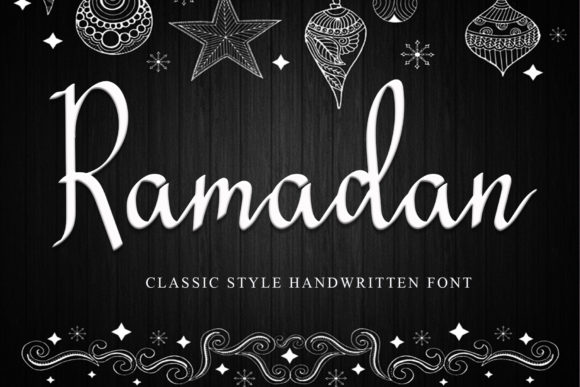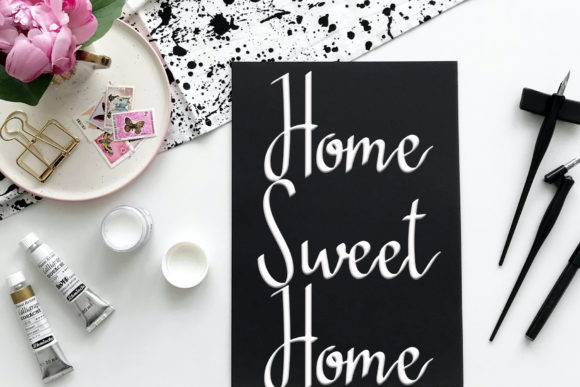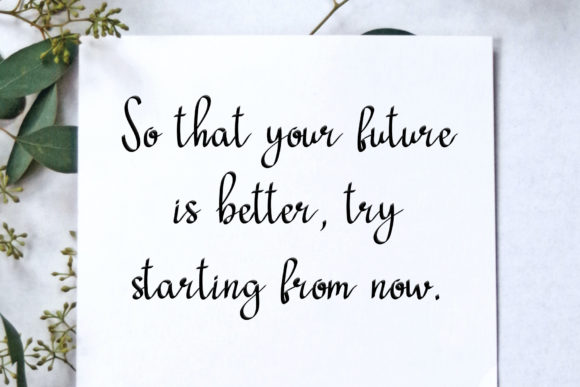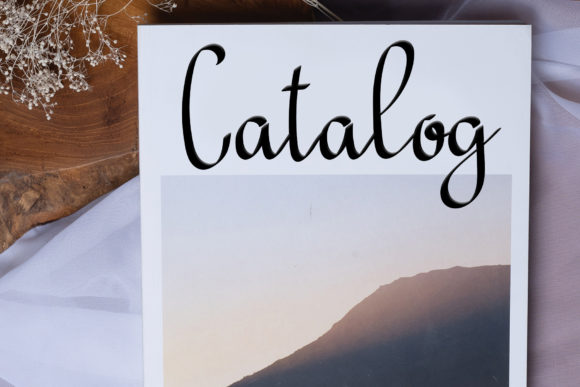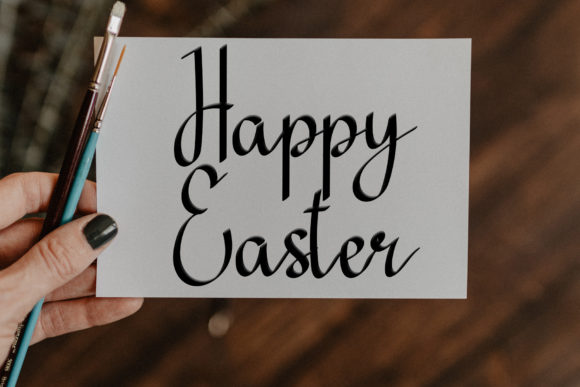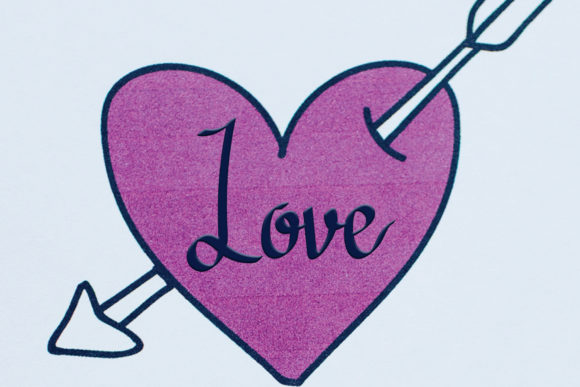
Ramadan Font
About Ramadan Font
Ramadan is a delicate, elegant and flowing handwritten font. It has beautiful and well balanced characters and as a result, it matches a wide pool of designs. Add it to your most creative ideas and notice how it makes them come alive!